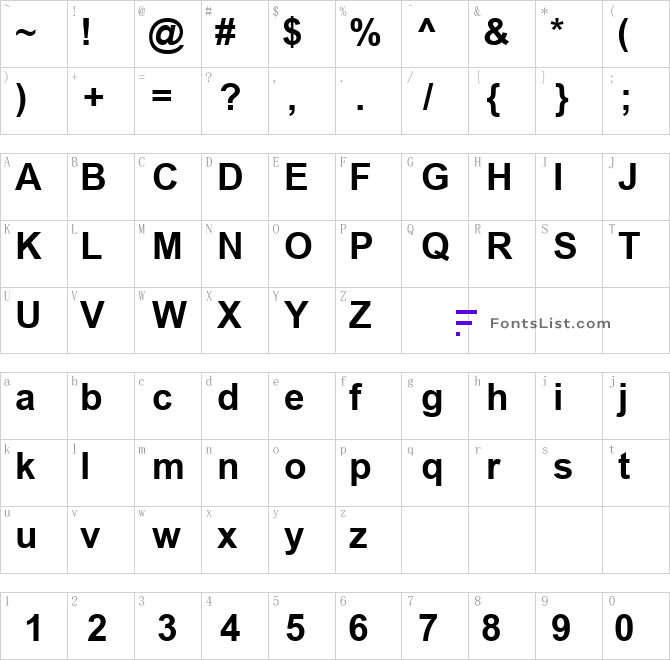
- Font Name:Arial CE
- Subfamily:Полужирный
- Subfamily:Monotype:Arial CE Bold:Version 1 (Microsoft)
- Full Name:Arial CE Полужирный
- Weight:7
- PostScript:Arial-BoldMT
Arial-CE-Bold.ttf is a very beautiful artistic font, Arial-CE-Bold.ttf is widely used in the design and printing of various books and pictures,Arial-CE-Bold.ttf has a strong visual impact,Arial-CE-Bold.ttf is a commonly used font in newspapers, magazines and books, and is used in posters, e-commerce Poster design, store design, logo design, font design and other fields.Arial-CE-Bold.